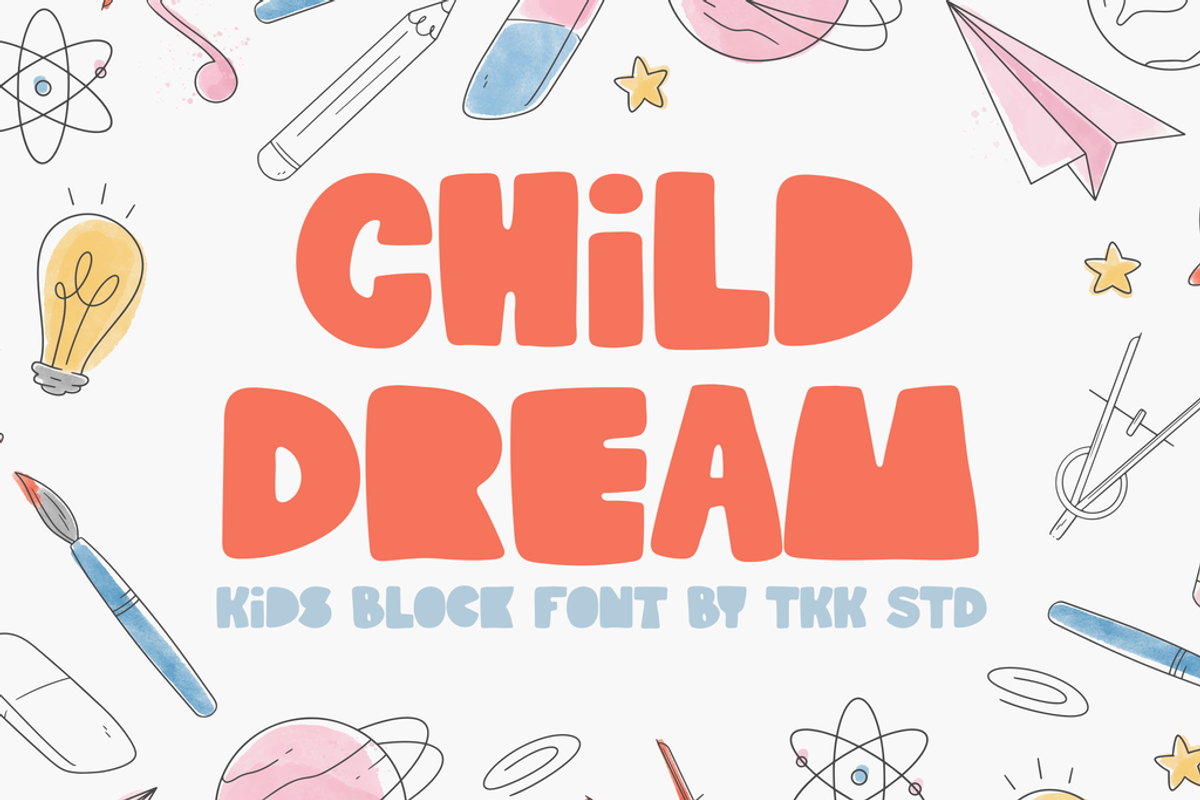
Please note, to use this font for commercial purposes, you must purchase the full version. Child Dream is a playful and whimsical font designed specifically for children’s projects. With its rounded, friendly letterforms, this font is perfect for logos, invitations, posters, and educational materials. Whether you're designing for a kids' brand, a fun event, or a children's book, Child Dream adds a cheerful and approachable touch to your work. Test it out and enjoy free download access for personal use. Experience the joyful style of Child Dream - Kids Font Free Download before purchasing the commercial license. Add a fun, childlike touch to your designs with Child Dream.